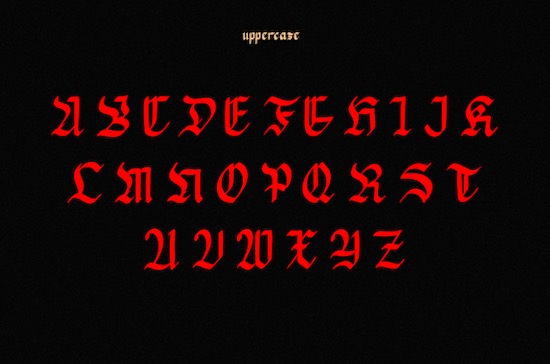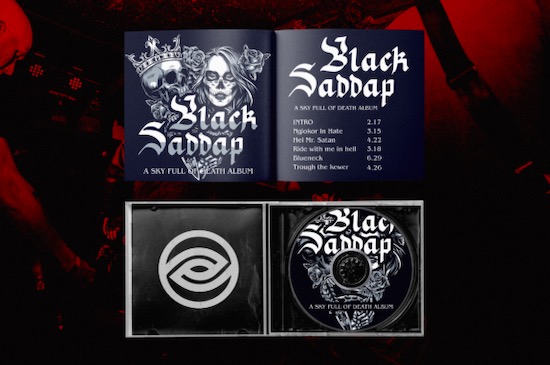
Mata Pisau font is a typeface with modern and vintage Blackletter font style taste, it was designed and published by Enigma Lettering Studio in August 2021. This font has a set of charming uppercase and lowercase letters, ligatures, numerals, along with gorgeous punctuation, discretionary ligatures, and alternate characters.
Mata Pisau Blackletter font is created to be applied especially in Headline, Clothing and the other various design formal forms such as logo, movie titles, Fashion, headlines, banners, and more.
Mata Pisau Blackletter font
This is a font with many ingenious and sophisticated strokes. Combined with your creative will create individual personalities for each design product in the future.
* Upper & lower case characters, symbols, and ligatures
* Advanced OpenType features